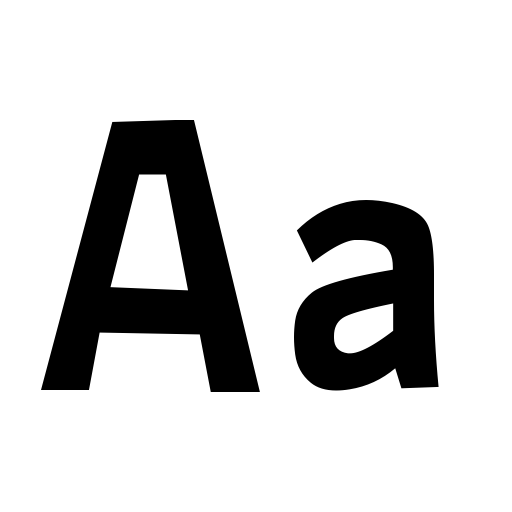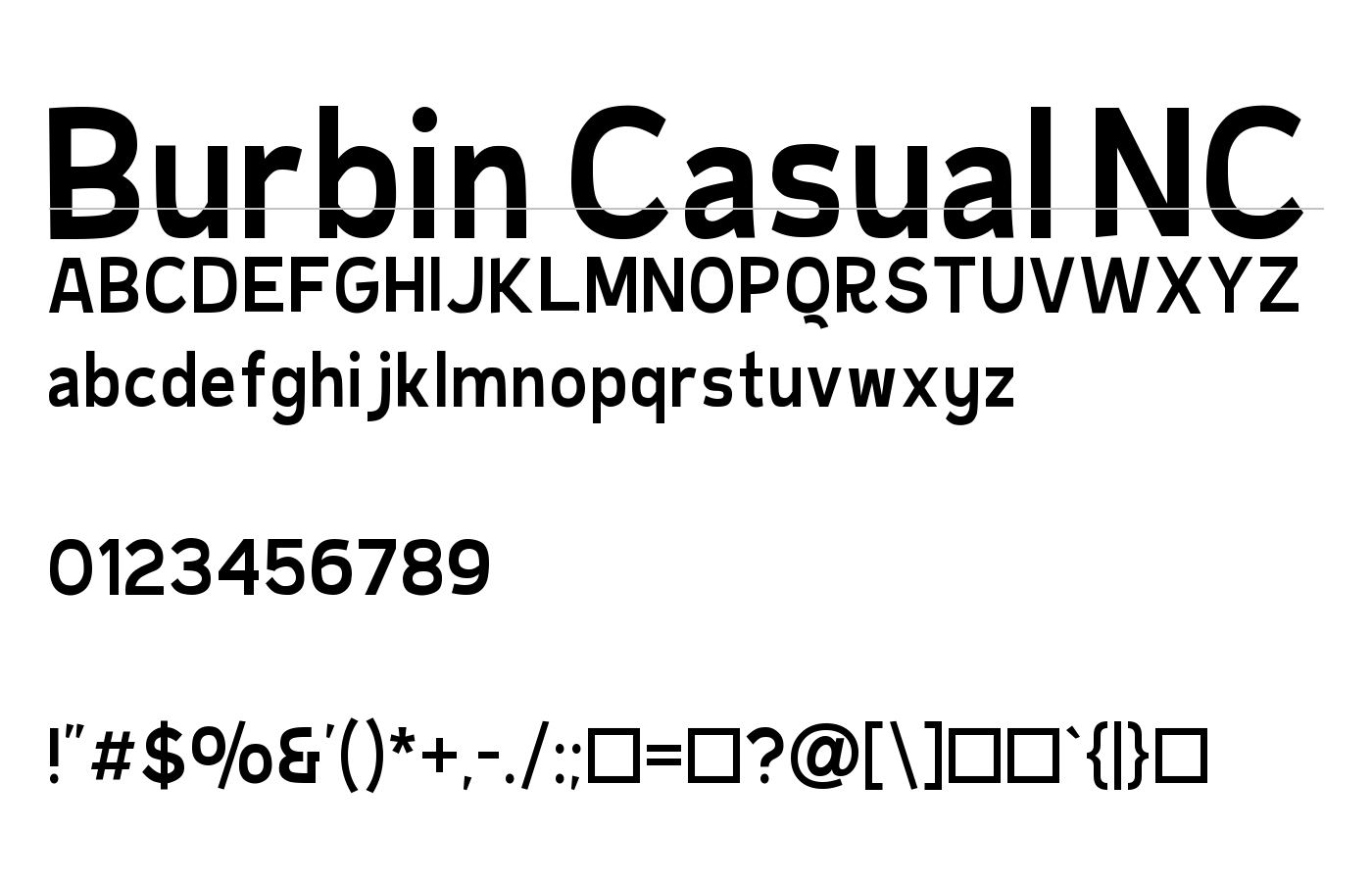
Burbin Casual NC is a clean and modern sans serif font with a friendly, approachable feel. It features a medium weight with slightly condensed letterforms and a moderate x-height, offering clear readability and balanced spacing. This font works well for branding, headlines, and editorial use when you want a relaxed yet professional look.
Burbin Casual NC Font
About Burbin Casual NC Font